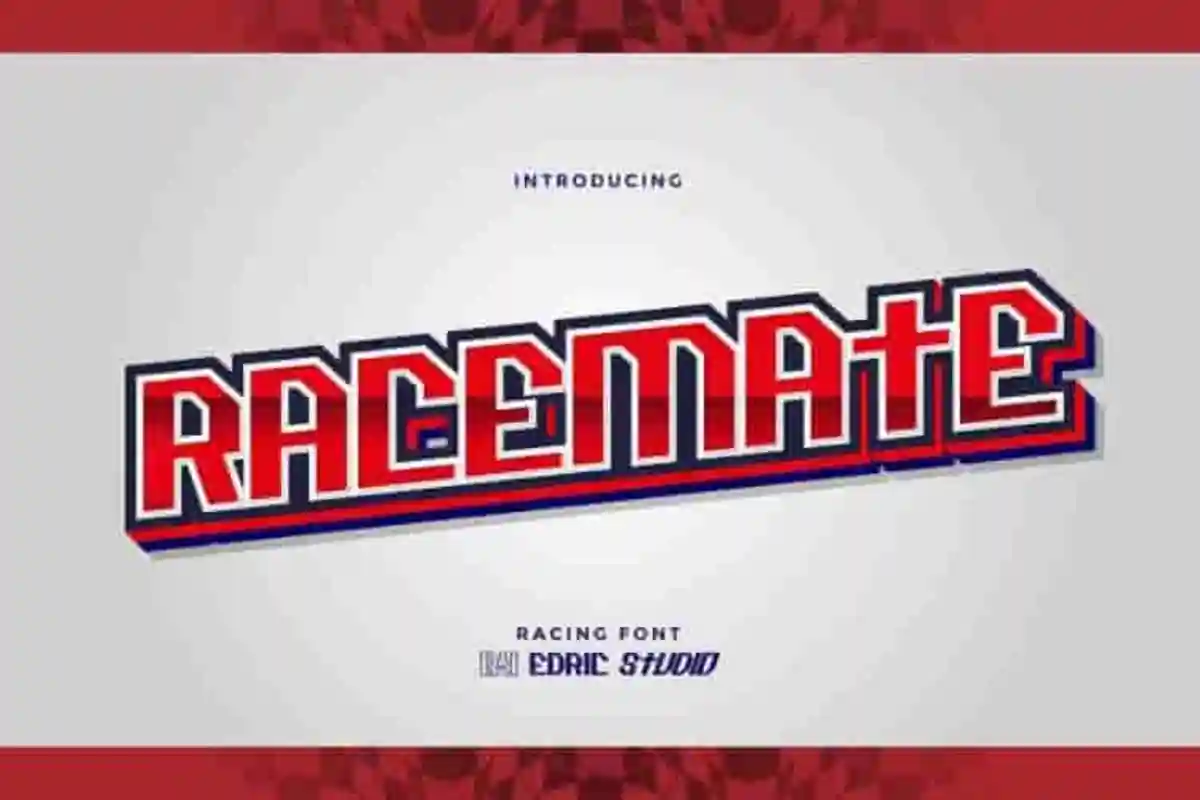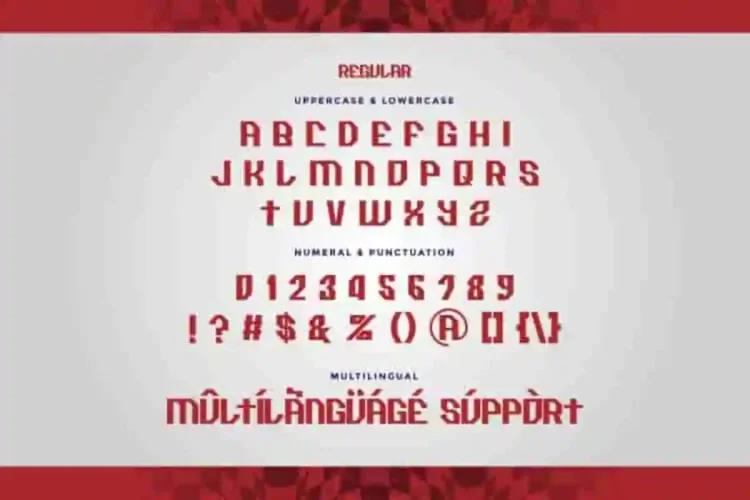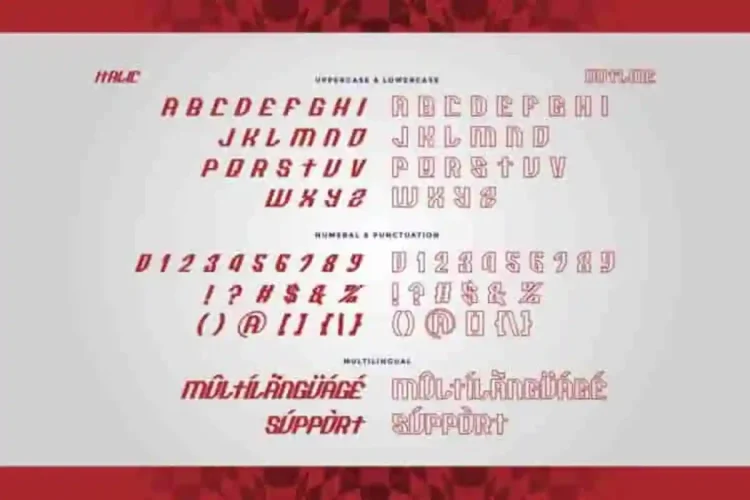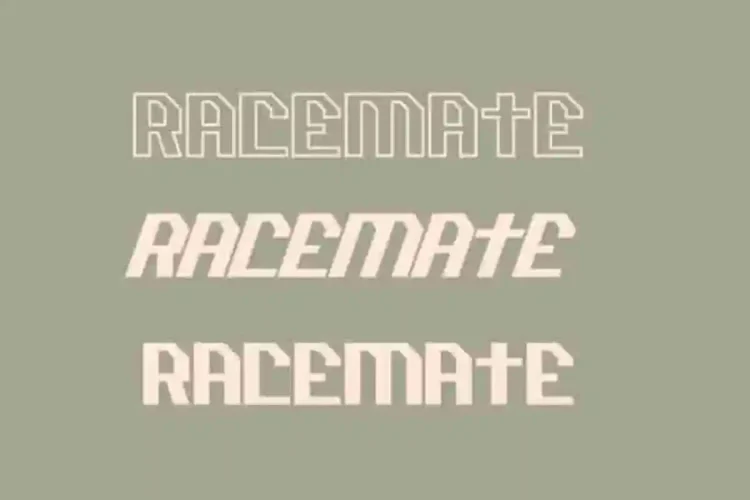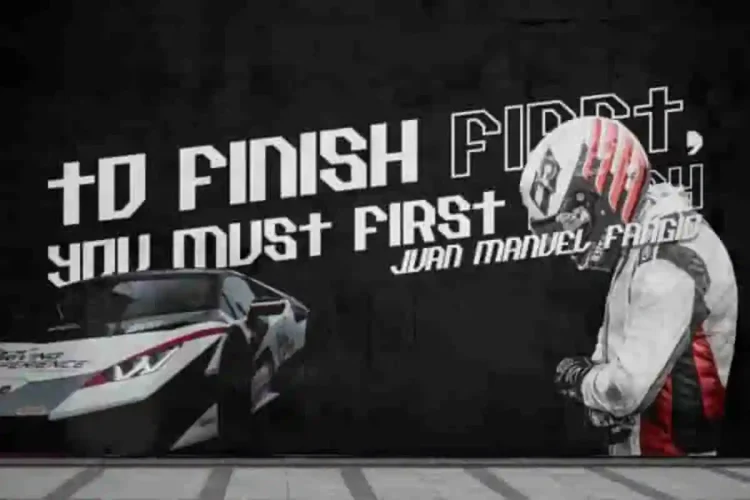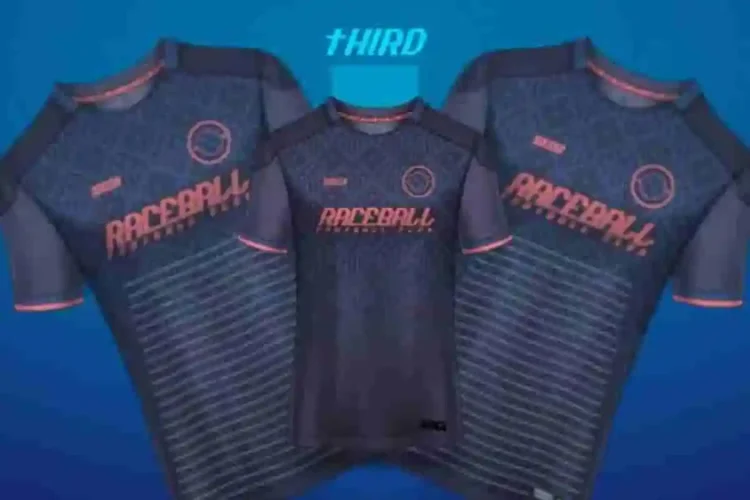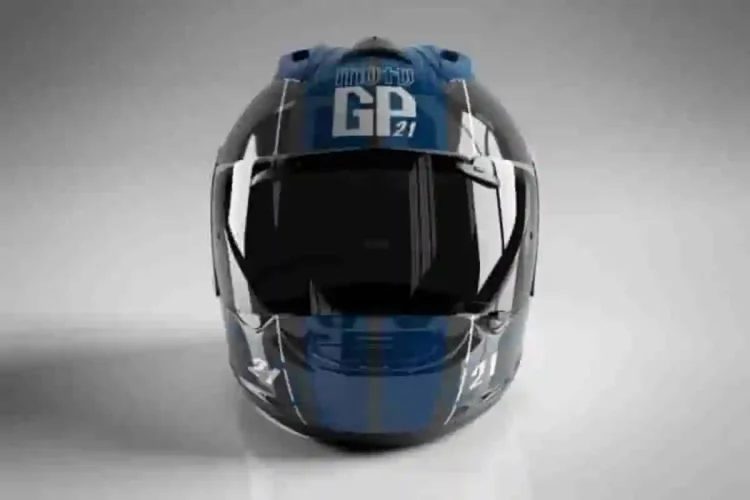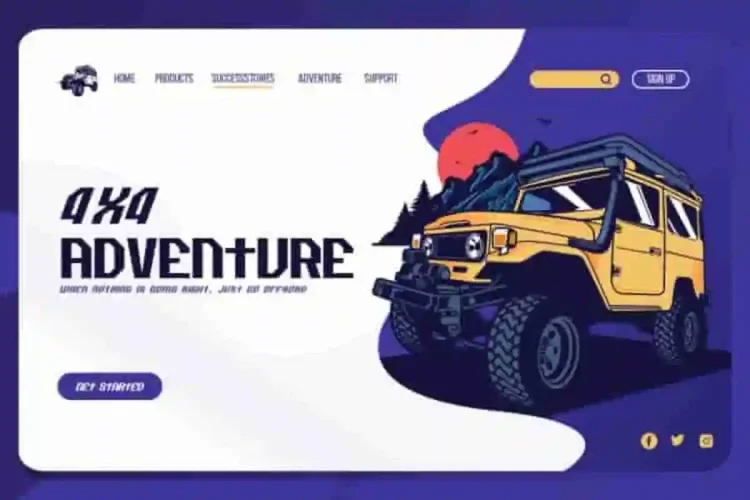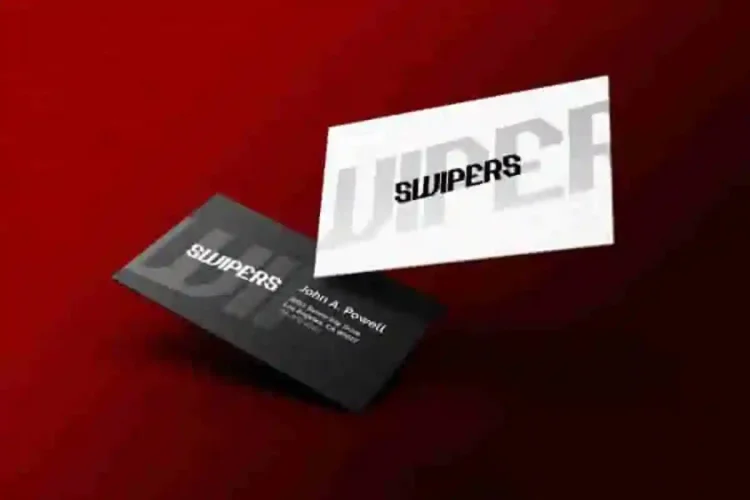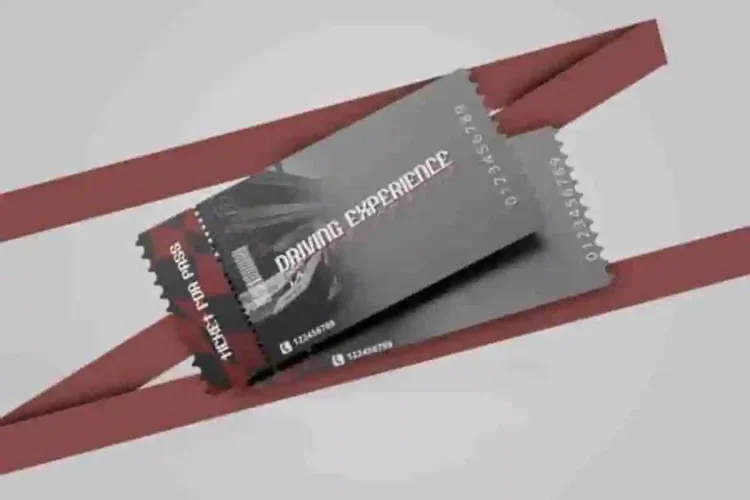
Racemate Modern Stencil Font
Racemate Modern Stencil Font is a modern sans serif display font with racing speed car motor style. The designer of this font is Shalsa and Suci from Indonesia.
Racemate Modern Stencil Font has three style options : Regular, Italic and Outline. The font will be perfect for branding, logo, sticker, decal, signage, flyer, brochure etc. Perfect for logos, decals, stickers, tournament posters, branding, and event promotions, this font will give your designs a competitive edge.